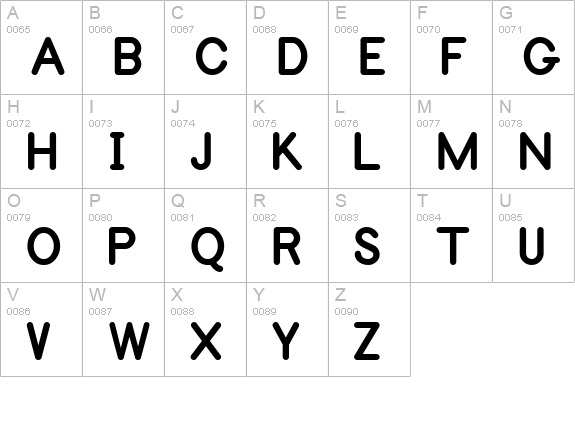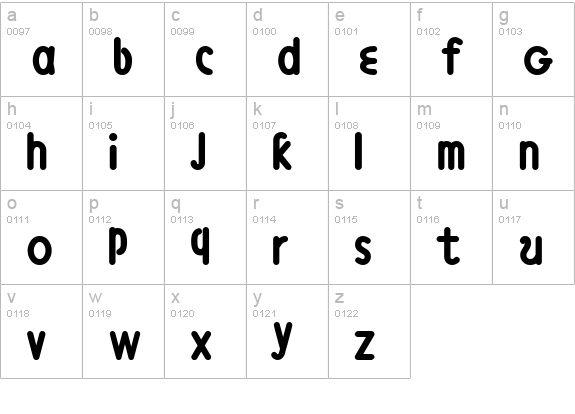
Philadelphia LineBold is a striking and modern font that exudes confidence and sophistication. With its clean lines and bold presence, this font is perfect for making a statement in any design project. The sharp angles and sleek curves of Philadelphia LineBold give it a unique and eye-catching look that will captivate your audience. What sets Philadelphia LineBold apart is its versatility - it can be used for a wide range of design purposes, from branding to editorial design to web graphics. Whether you're creating a sleek logo, a modern website, or a standout poster, Philadelphia LineBold will help elevate your design to the next level. And the best part? Philadelphia LineBold is completely free to download at FontsMarket.com. So you can start using this stylish font in your projects right away, without any cost. Don't miss out on the opportunity to add this dynamic font to your design toolkit today!